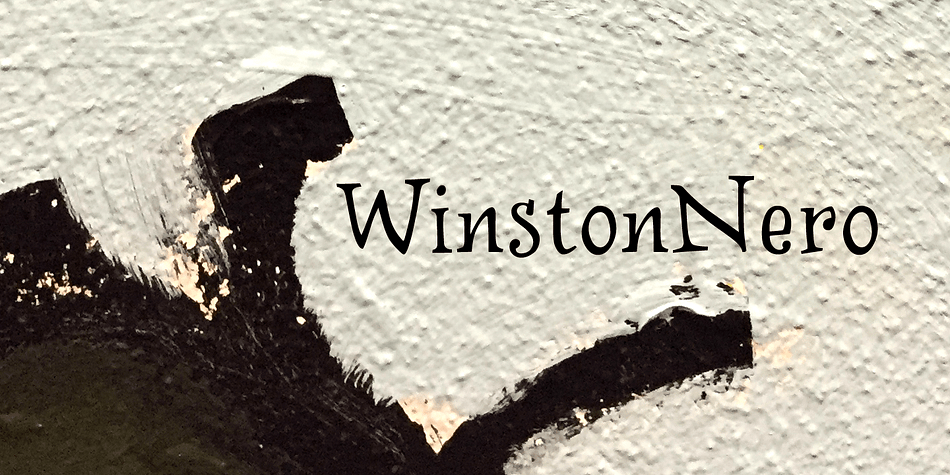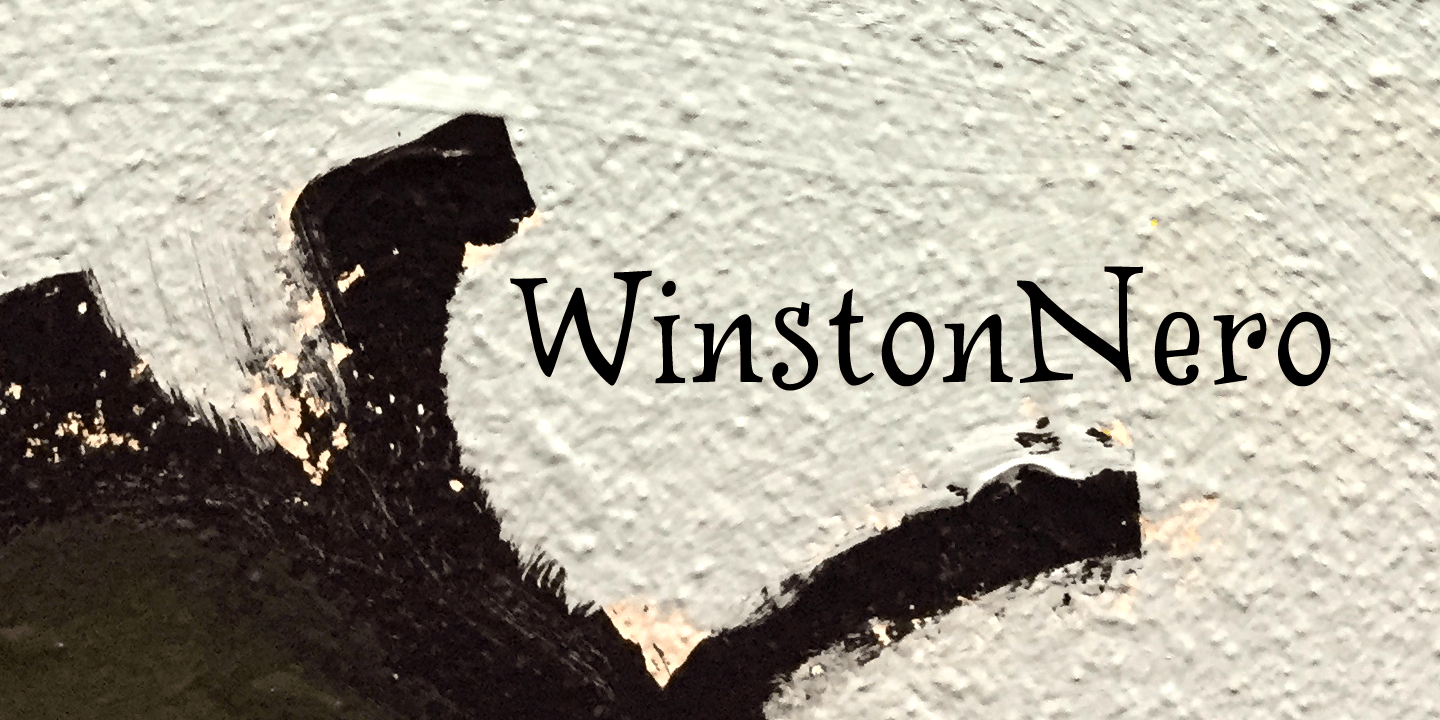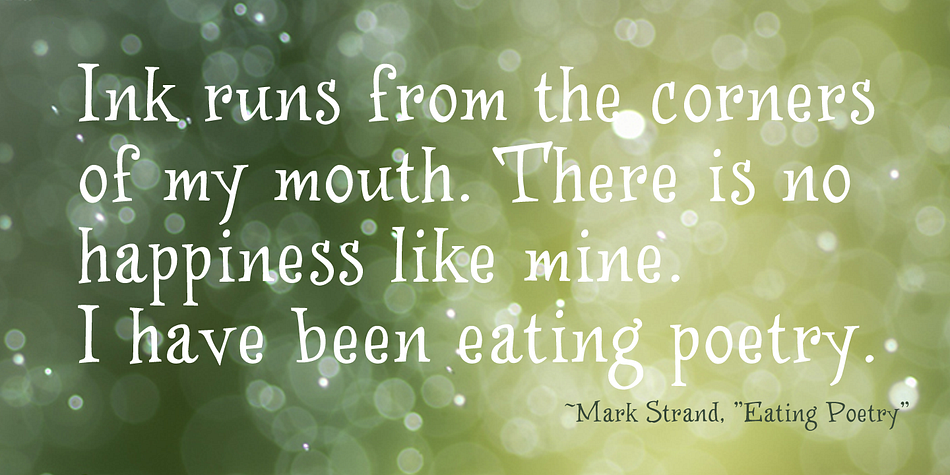
WinstonNero is a hand drawn font published by JOEBOB Graphics.
Handwritten with a dip pen and a bottle of black Windsor Newton ink. Works well in children’s books.